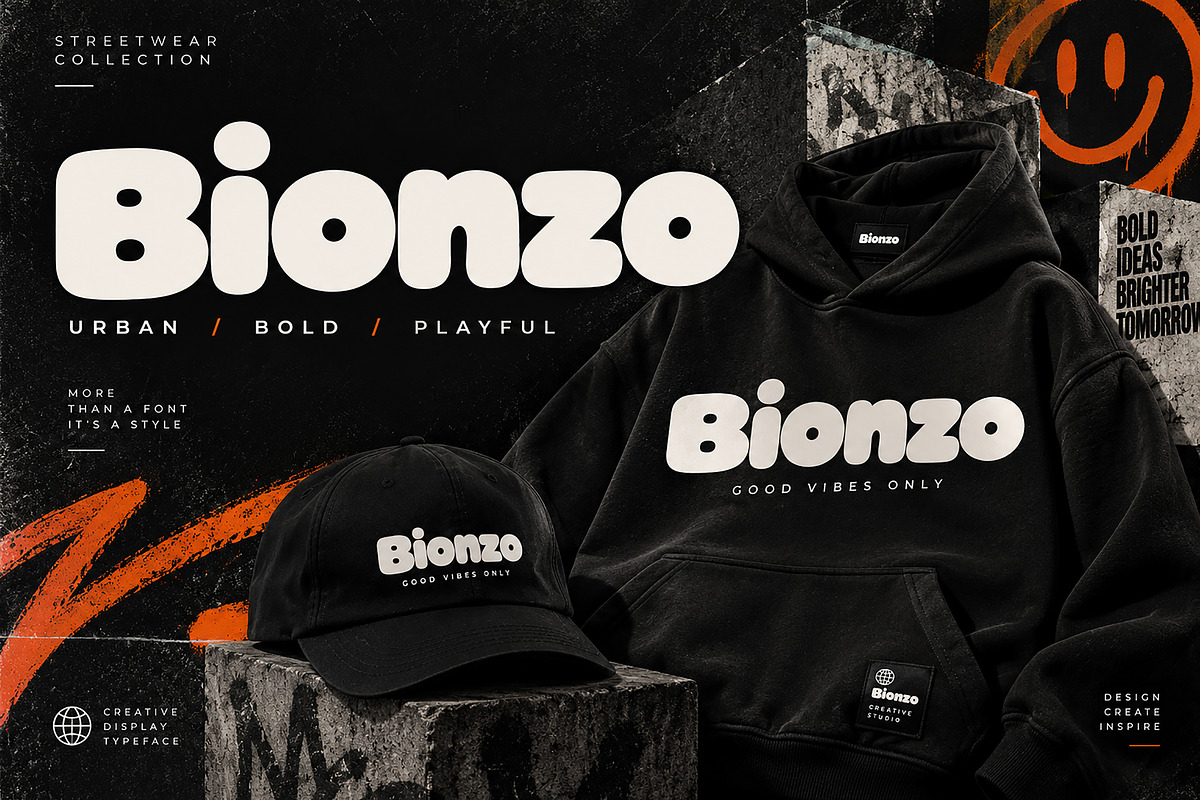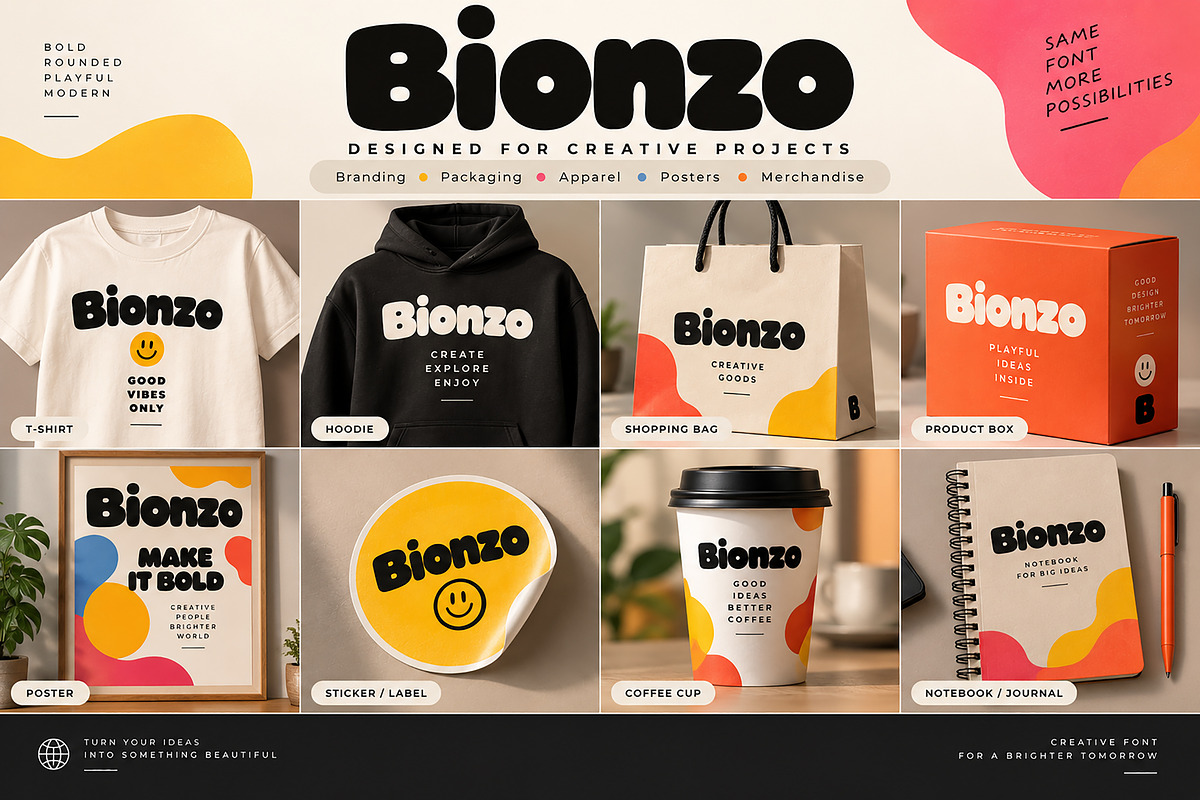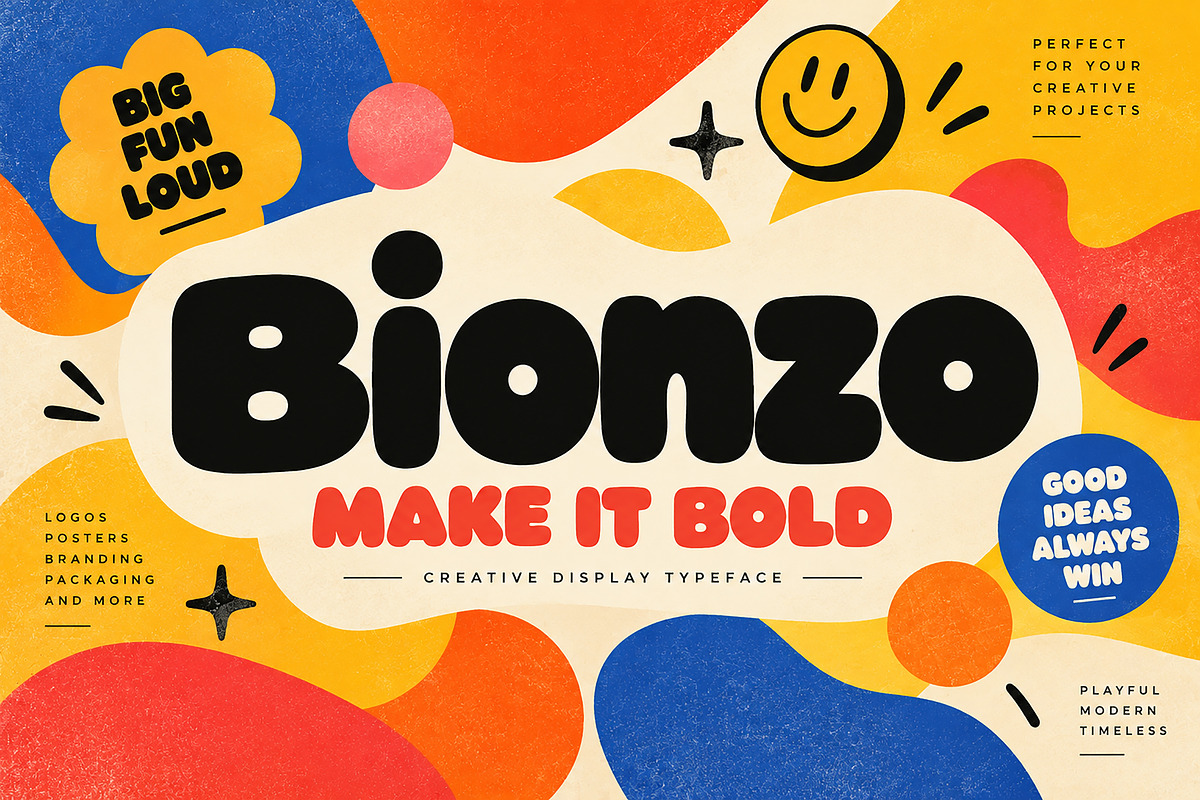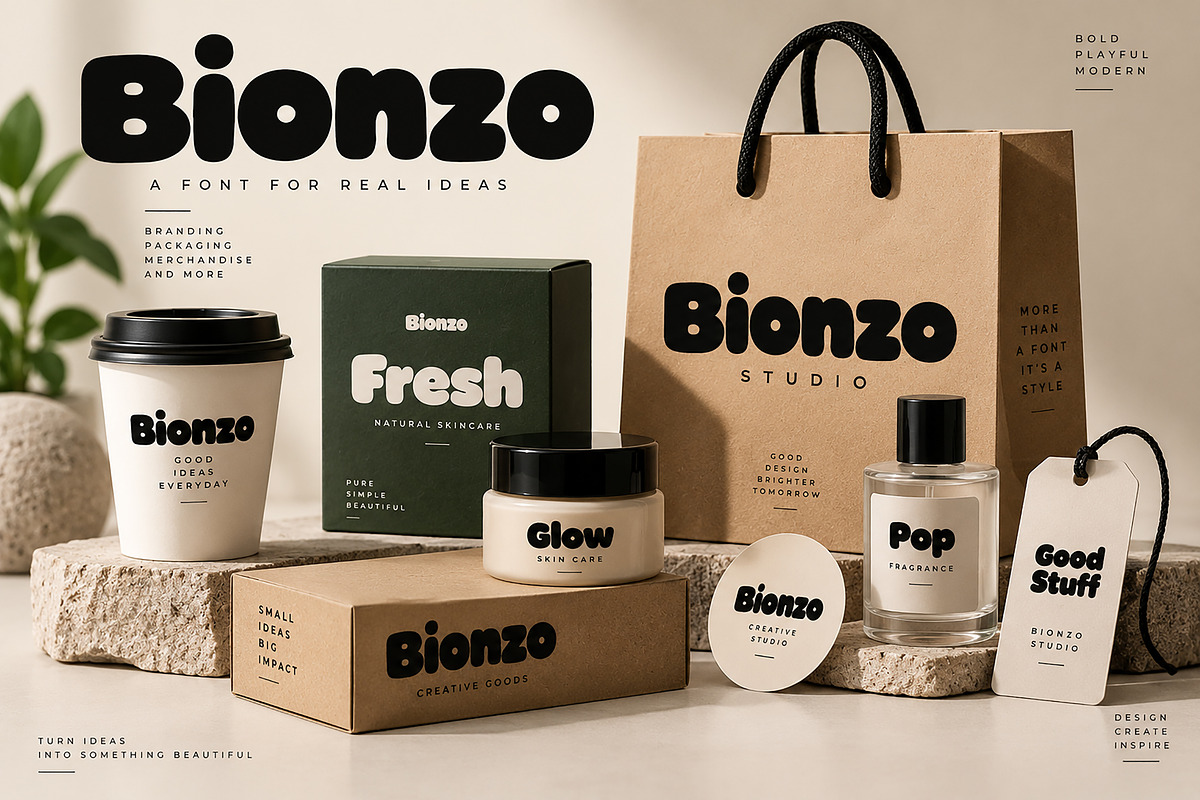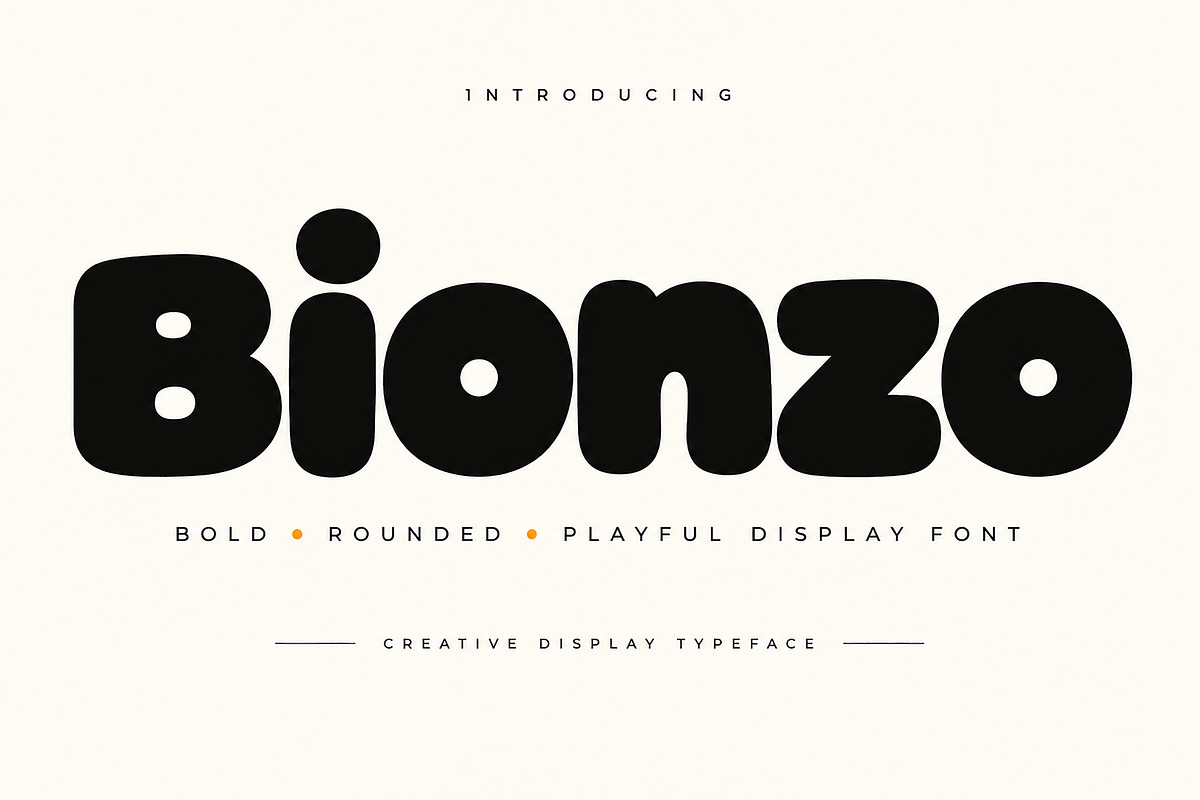
Bionzo _ Display Font
Bionzo is a bold and playful rounded display font designed to make your creative projects stand out. With its chunky letterforms, smooth rounded shapes, and strong visual presence, Bionzo brings a fun, modern, and energetic personality to branding and display typography.
Perfect for logos, branding, posters, apparel, packaging, social media graphics, merchandise, labels, stickers, headlines, product designs, and advertising projects.
Its bold and friendly appearance works especially well for modern brands, streetwear designs, food and beverage packaging, creative campaigns, children's products, lifestyle branding, and eye-catching promotional artwork.
Bold rounded display style
Playful and modern appearance
Strong visual impact at large sizes
Great for branding and logo concepts
Suitable for print and digital projects
Ideal for headlines, posters, packaging, and merchandise
Logos • Branding • Posters • Apparel • Packaging • Labels • Stickers • Merchandise • Social Media • Advertising • Product Design • Headlines
Bring a bold, playful personality to your next creative project with Bionzo.